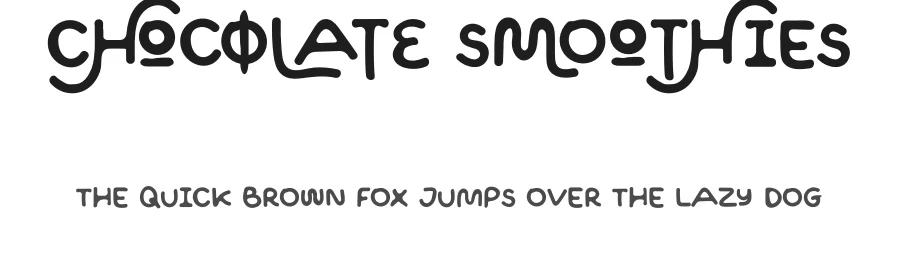
About Good Playmate Font
| Designer | Nuryanto Dwi |
Good Playmate Font is a decorative font that shines as a display or heading face. Pair it with a clean sans-serif or serif font for body text β the contrast creates a clear hierarchy while the two styles stay balanced and easy to read.
Good Playmate Font
by Nuryanto Dwi